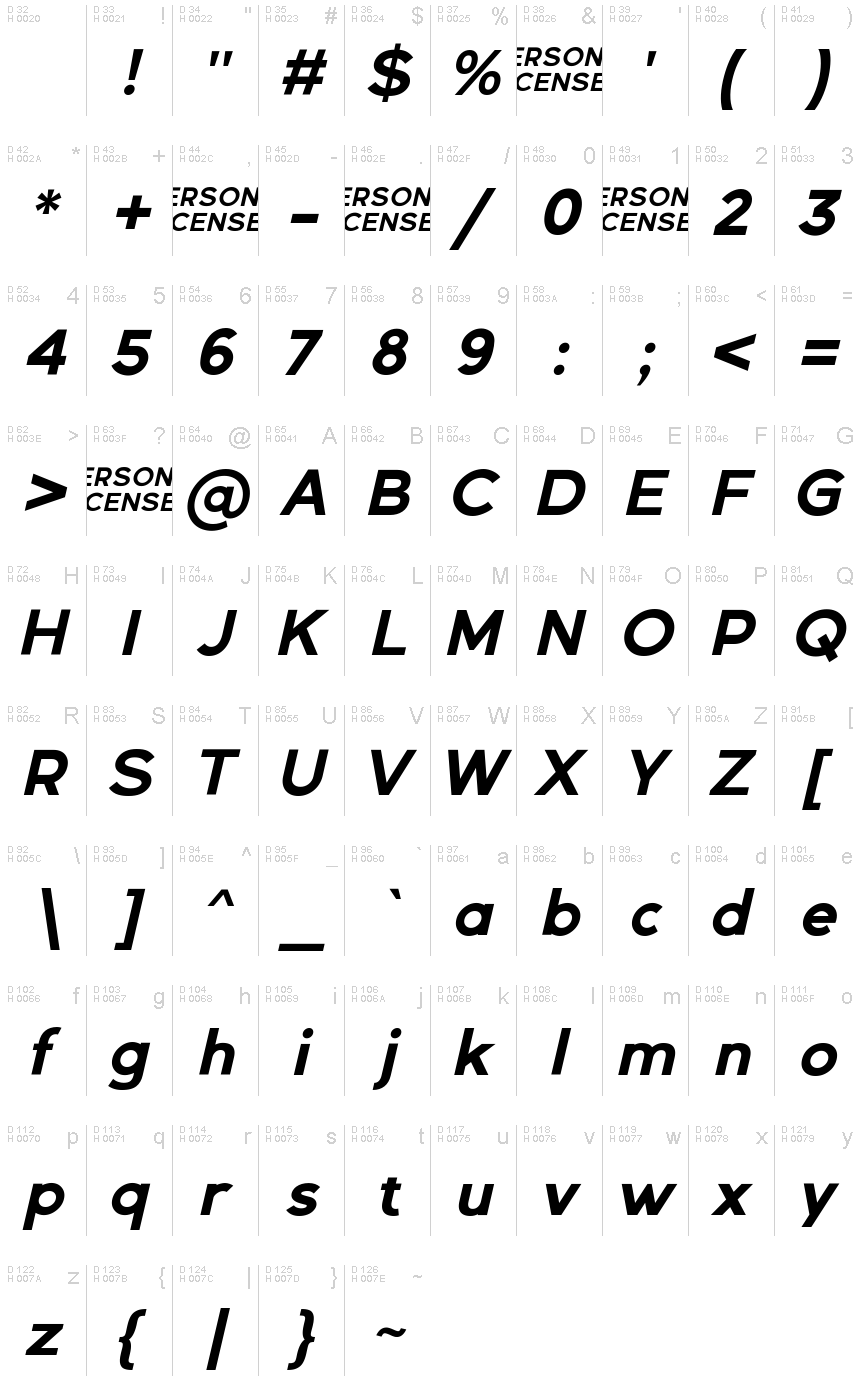
Gexo Sans Bold Italic
Gexo Sans Bold Italic, designed by Java Pep, is a sans serif font that exudes confidence with its expanded form and dynamic slant. Its bold, forward-leaning characters suggest movement and energy, making it an excellent choice for conveying excitement and modernity. The expanded style of this typeface offers a friendly yet assertive presence that stands out in any design.
Perfect for headlines that demand attention or branding projects that aim to make a strong statement, Gexo Sans Bold Italic adds character to advertisements, posters, and digital platforms where engagement is key. This font's combination of contemporary flair and robustness ensures it can handle the spotlight with ease across various creative applications.